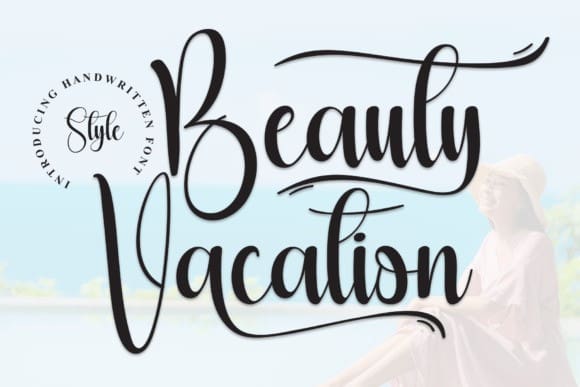
Beauty Vacation Font
Beauty Vacation Font is a modern and exquisite handwritten font. Stylish, graceful, and flowing, this font will definitely elevate the look of any of your beautiful creations while keeping them grounded and natural.